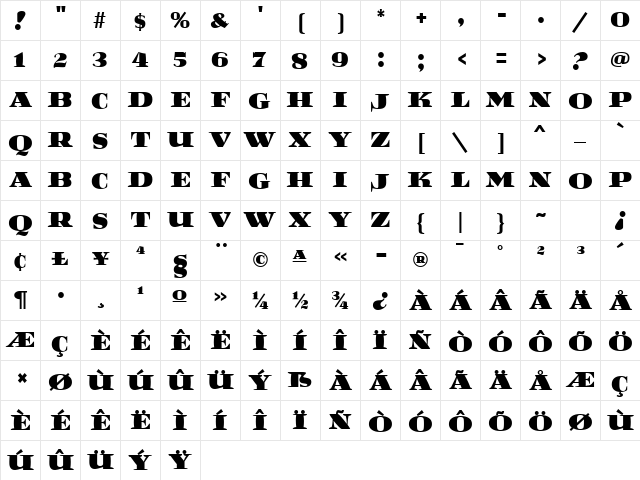
Reef MF Regular
Design Context for Reef MF Typeface
Reef MF takes a measured approach to typography — its balanced proportions and neutral character make it a reliable workhorse for both digital and print work.